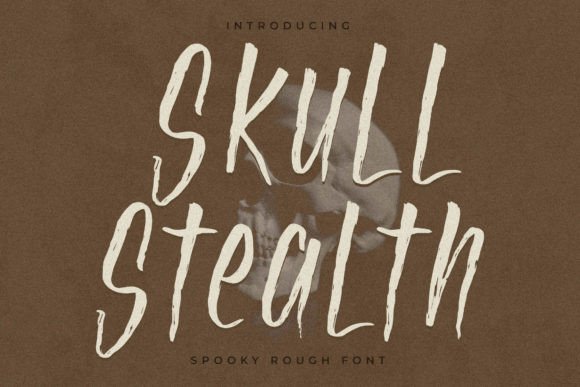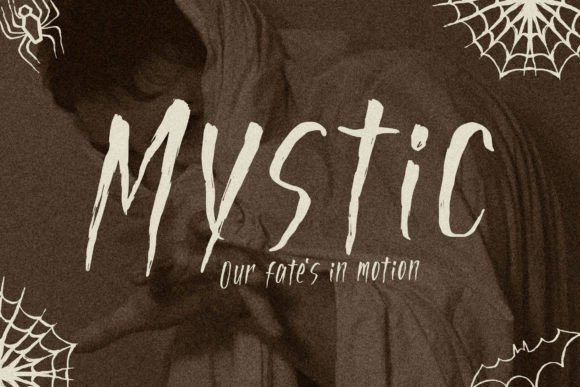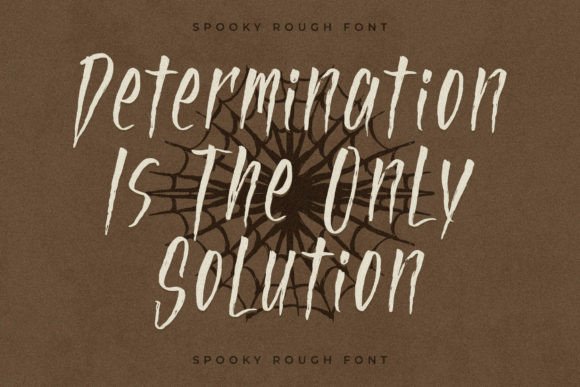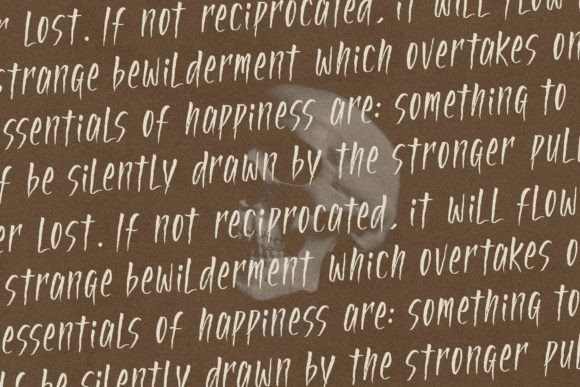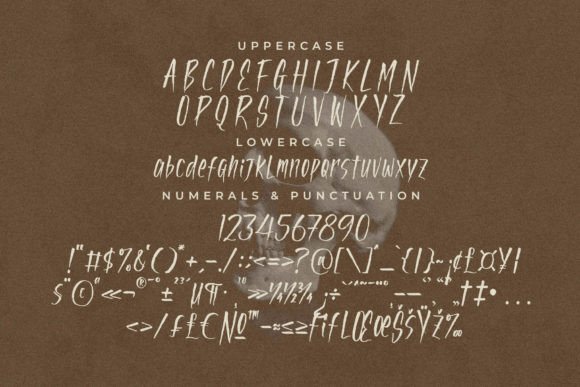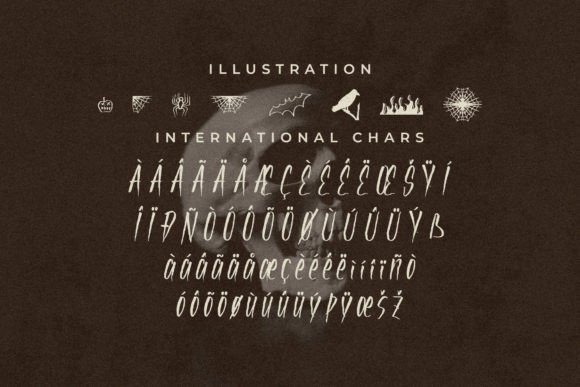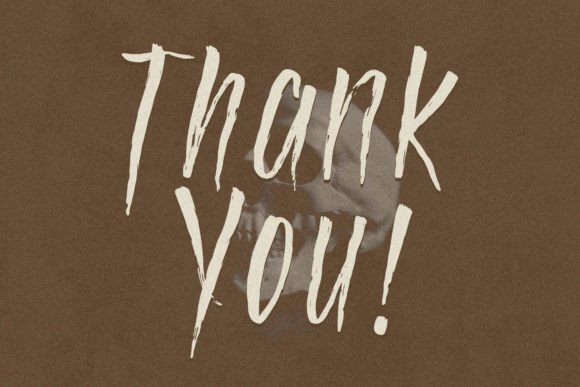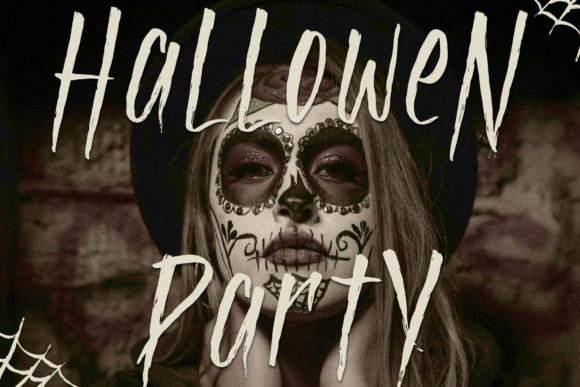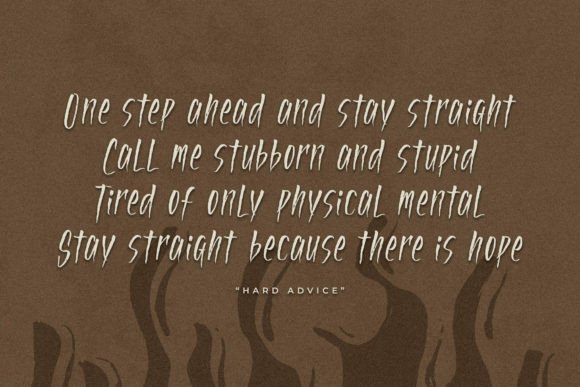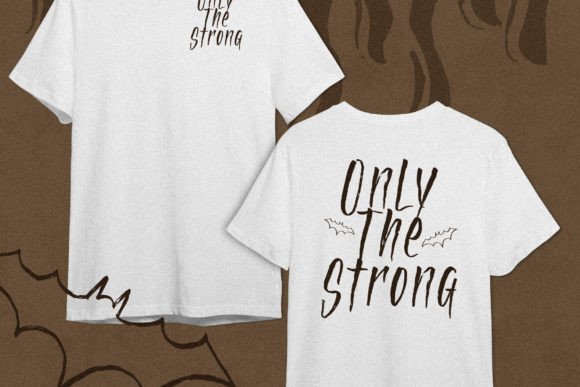
Skull Stealth Font
About Skull Stealth Font
Skull Stealth – Spooky Rough Font, suitable for any projects such as logos, branding projects, homeware designs, product packaging, mugs, quotes, posters, shopping bags, t-shirts, book covers, name cards, invitation cards, greeting cards, labels, photography, watermark, special events, and all your other lovely projects that need a beautiful script taste.